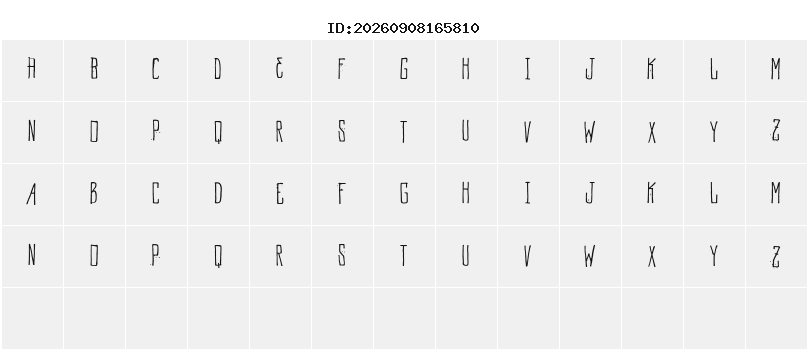
• Font Name: Vtks MockUp
• Full Font Name: Vtks MockUp
• PostScript Name: VtksMockUp
• Designer: douglas vitkauskas
• Manufacturer: douglas vitkauskas
About Vtks MockUp.ttf
Vtks MockUp.ttf is a modern, elegant sans-serif font designed for ultimate readability and visual harmony. Perfect for branding, headlines, web design, and print materials.